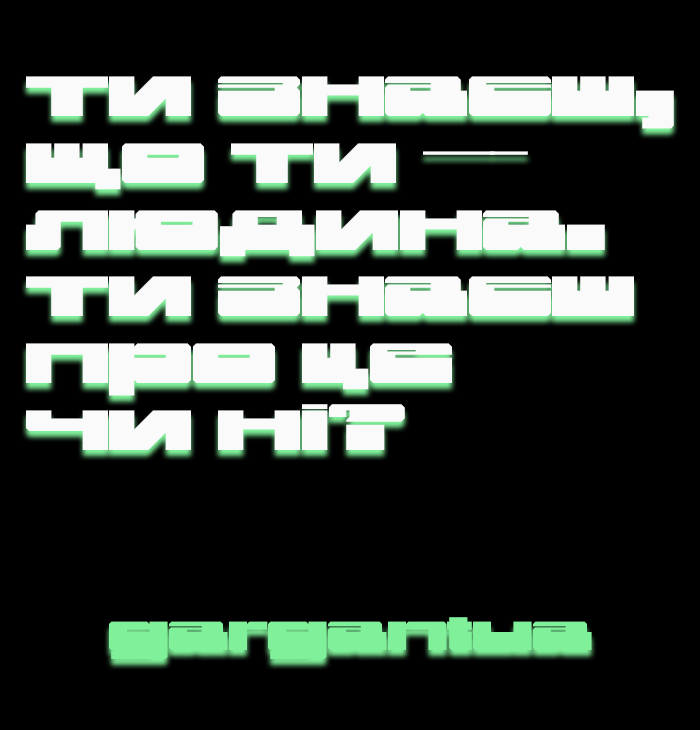
Wow, very cool, deserves top pick. I really want to see cyrillic in it.
looks great for titles, good job!
Added dashes and quotation marks, ©, ®, £, €, ¢, ¡, ¿, basic Greek support, implemented minor fixes for existing glyphs.
German quotation marks present a bit of an issue right now, it’s a choice between style consistency and quotation mark proportions—I chose to keep the consistency for now.
I also moved the previous ‘round’ iteration of diaresis/umlaut to uppercase—the preferred form is now square.
Cool. I think something more exaggerated would make it look better and more even. These super fat shapes have given me an idea...